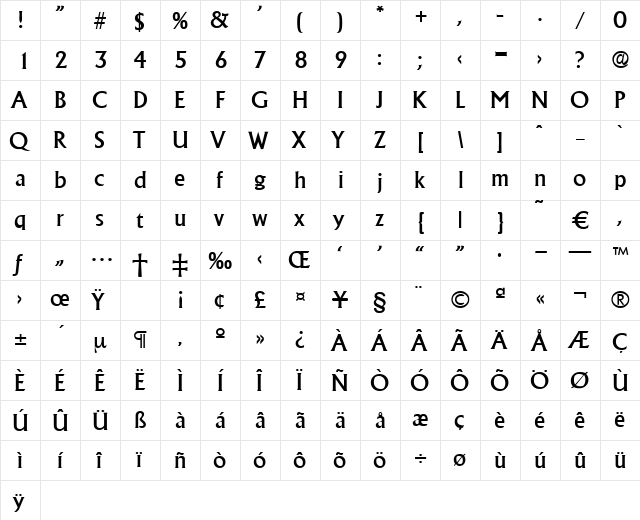
Adelon-Medium Regular
Design Context for Adelon-Medium Typeface
Adelon-Medium takes a measured approach to typography — its balanced proportions and neutral character make it a reliable workhorse for both digital and print work.